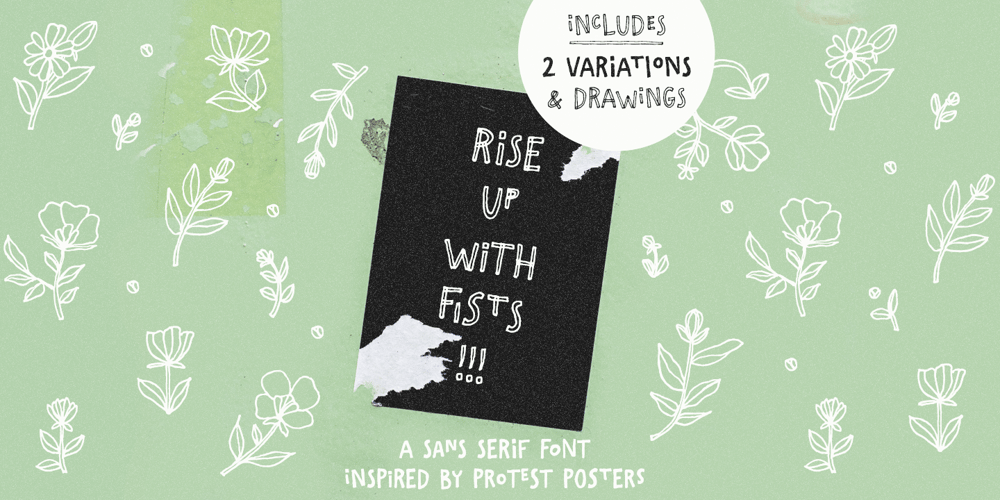
Rise Up With Fists
Rise Up With Fists font
Rise Up With Fists Font Family was designed by Ana Parracho and published by Ana’s Fonts. Rise Up With Fists contains 3 styles and family package options. Rise Up With Fists is a fun, sans serif font with lots of variations and extra drawings, inspired by protest posters. Use Rise Up With Fists in any design that needs a bold font, such as logotypes, quotes and social media posts, website and magazine layouts, and poster designs.Rise Up With Fists includes: Rise Up With Fists Regular, with 100 ligatures that makes this font look truly handmade and realistic (and fun to use!) A Filled alternative for a more bold look An Extras font with floral drawings and doodles